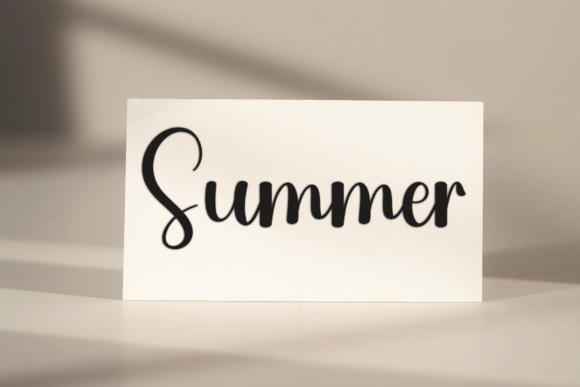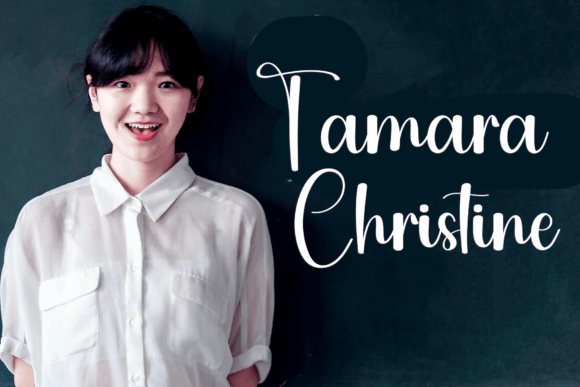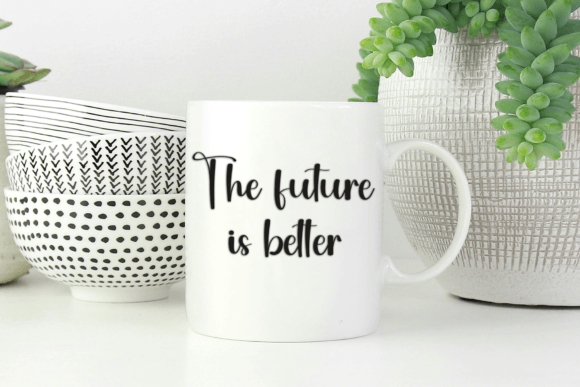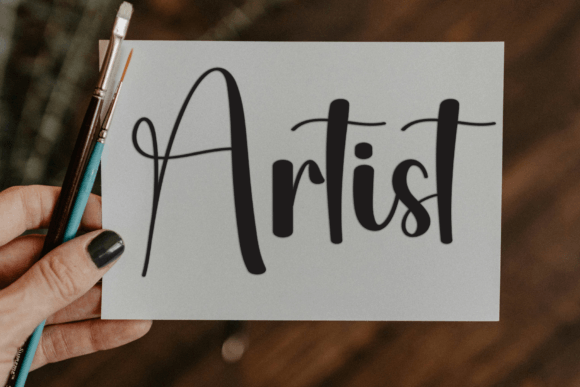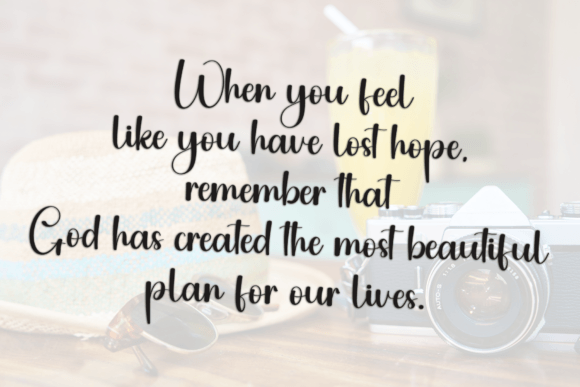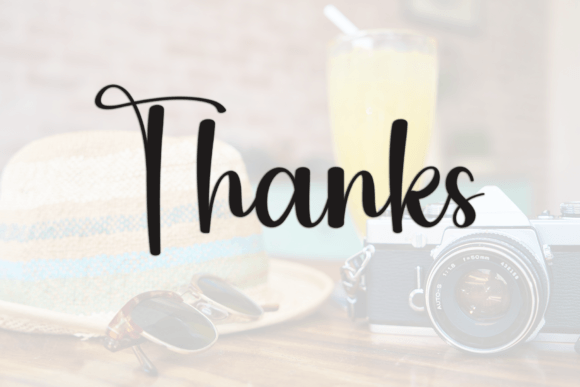
Discover the Charm of Digital Font: Elevate Your Designs with Elegance
In the world of digital design, fonts play a crucial role in conveying the tone and personality of a brand or message. Among the numerous font styles available, the Digital Font has gained significant attention for its unique blend of charm and elegance. This versatile font is perfect for designers and crafters looking to add a handwritten touch to their creations. In this article, we’ll explore the features and applications of the Digital Font, and how it can elevate your designs to the next level.
The Digital Font: A Perfect Blend of Charm and Elegance
The Digital Font is a beautifully crafted font that exudes a sense of sophistication and refinement. Its elegant strokes and precise lines make it an ideal choice for designs that require a touch of luxury and glamour. Whether you’re working on a wedding invitation, a thank you card, or a business logo, this font is sure to impress. Its versatility allows it to be used in a wide range of applications, from formal events to everyday designs.
Applications of Digital Font
The Digital Font is a versatile font that can be used in various design projects. Here are some of the most popular applications:
- Wedding Invitations: Add a touch of elegance to your wedding invitations with the Digital Font. Its beautiful script and refined lines make it perfect for formal wedding designs.
- Thank You Cards: Express your gratitude with style using the Digital Font. Its charming and elegant design makes it ideal for thank you cards and other greeting cards.
- Quotes and Greeting Cards: Add a personal touch to your quotes and greeting cards with the Digital Font. Its handwritten feel makes it perfect for designs that require a touch of personality.
- Logos and Business Cards: Create a lasting impression with the Digital Font. Its elegant design makes it perfect for logos and business cards that require a touch of sophistication.
Why Choose Digital Font?
There are several reasons why the Digital Font stands out from the rest:
- Unique and Versatile: The Digital Font is a unique and versatile font that can be used in a wide range of design projects.
- Elegant and Refined: Its elegant strokes and precise lines make it perfect for designs that require a touch of luxury and glamour.
- Handwritten Feel: The Digital Font has a beautiful handwritten feel that adds a personal touch to your designs.
Tips for Using Digital Font
Here are some tips for using the Digital Font in your designs:
- Pair it with Other Fonts: Experiment with pairing the Digital Font with other fonts to create a unique and visually appealing design.
- Use it for Headings: Use the Digital Font for headings and titles to add a touch of elegance to your design.
- Adjust the Size: Adjust the size of the font to create a clear hierarchy of information in your design.
The Digital Font is a beautiful and versatile font that can elevate your designs to the next level. Its elegant strokes, precise lines, and handwritten feel make it perfect for a wide range of design projects. Whether you’re a designer or a crafter, this font is sure to impress. With its unique blend of charm and elegance, the Digital Font is a must-have for anyone looking to add a touch of sophistication to their designs.